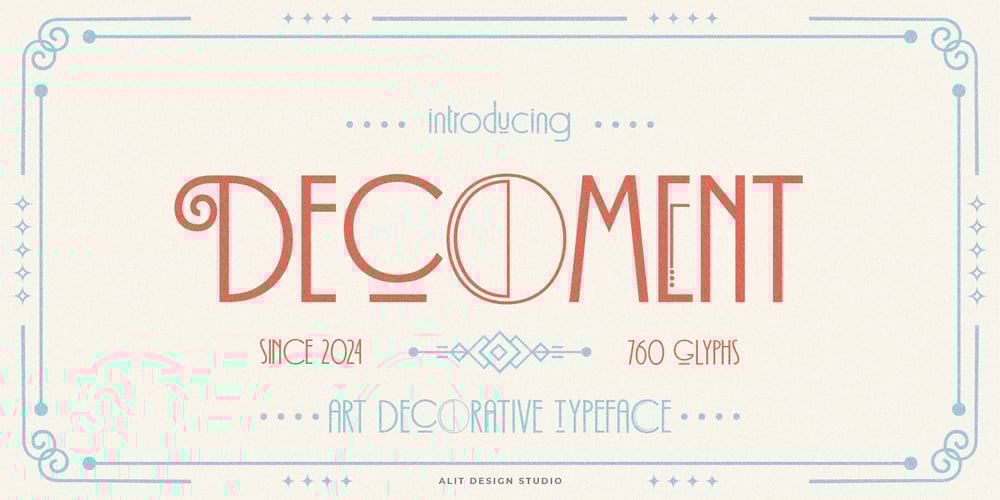
Decoment Font Family was designed by Alit Suarnegara and published by Alit Design. Decoment contains 1 styles and family package options. Decoment Typeface – A Timeless Art Deco EleganceElevate your design projects with Decoment Typeface, a stunning font inspired by the bold and sophisticated aesthetics of the Art Deco era. Perfectly blending vintage charm with contemporary versatility, this typeface is a must-have for anyone looking to add a touch of luxury and uniqueness to their designs.Key Features: 760 Characters: With an expansive character set, Decoment offers everything you need to craft dynamic and polished designs. Alternatives Galore: Explore a variety of character options to make your text truly one of a kind. Ligatures: Beautifully crafted ligatures add seamless connections between characters for a fluid and professional look. Swash Variations: Enhance your work with graceful swashes, perfect for creating dramatic headlines or artistic branding. PUA Encoded: Easily access every alternate, swash, and special character without the need for design software. Multilingual Support: Communicate your message across languages with extensive support for international characters. Whether you’re designing logos, invitations, posters, or packaging, Decoment Typeface offers the versatility and elegance needed to stand out. Its clean lines, geometric forms, and decorative flair capture the spirit of the Roaring Twenties, making it ideal for both vintage-inspired and modern applications.Unleash the power of Art Deco in your creations with Decoment Typeface—where timeless design meets endless possibilities.